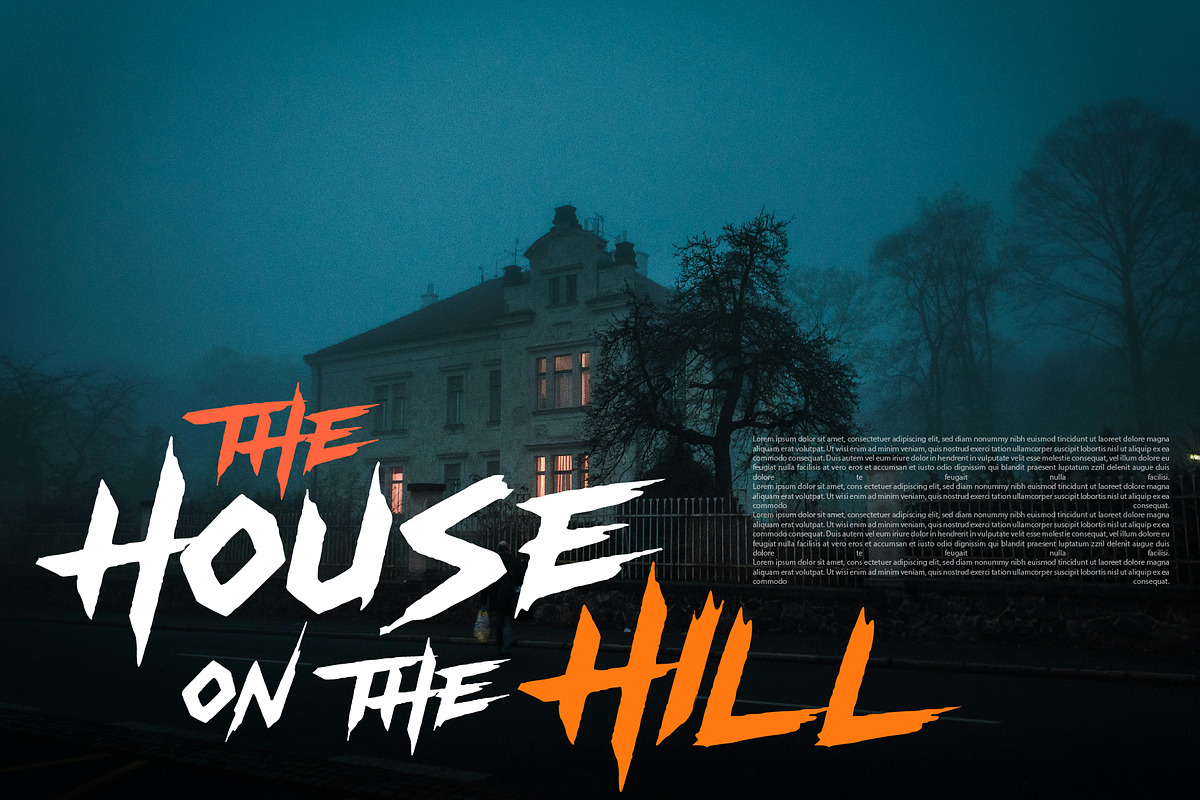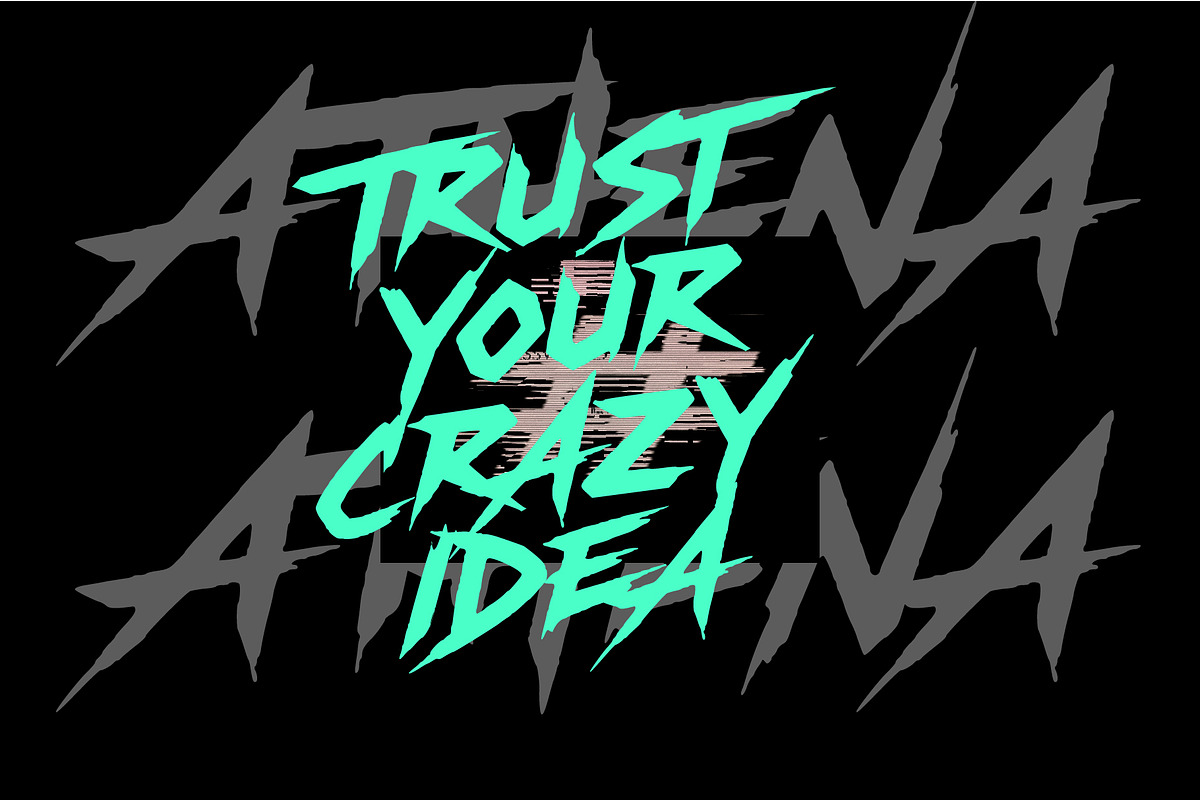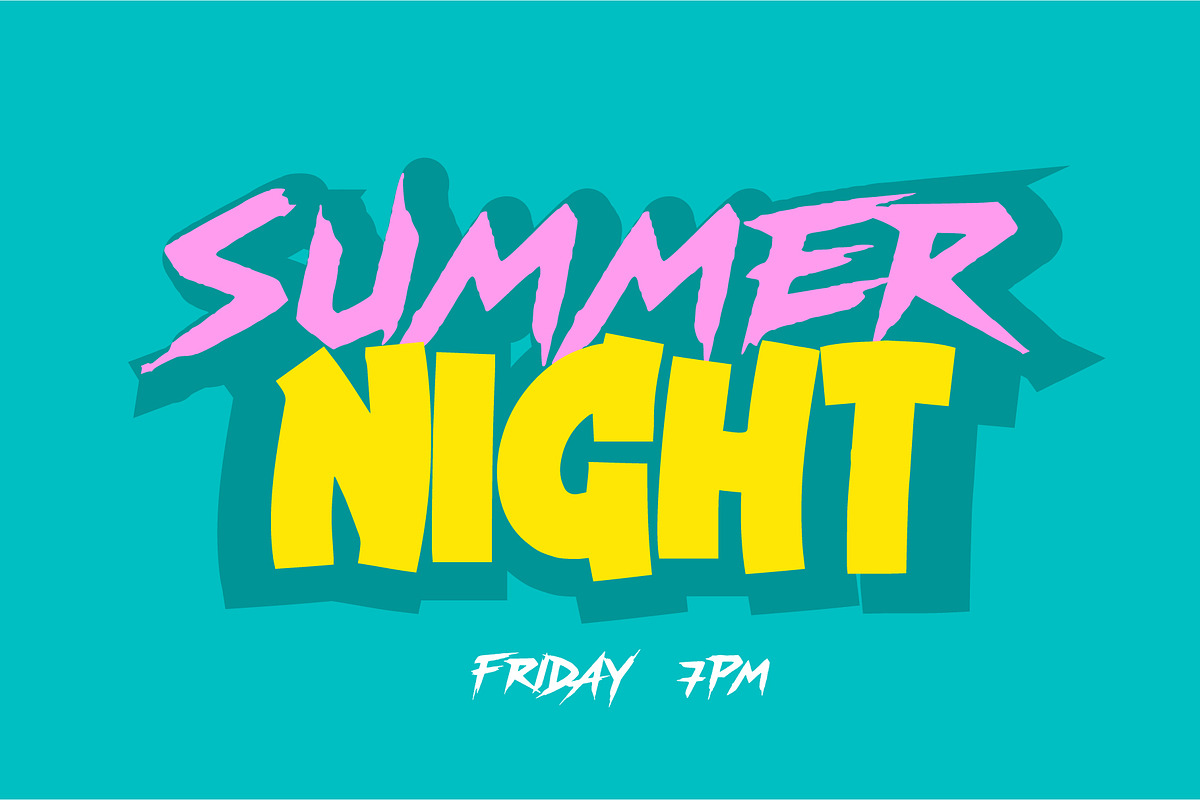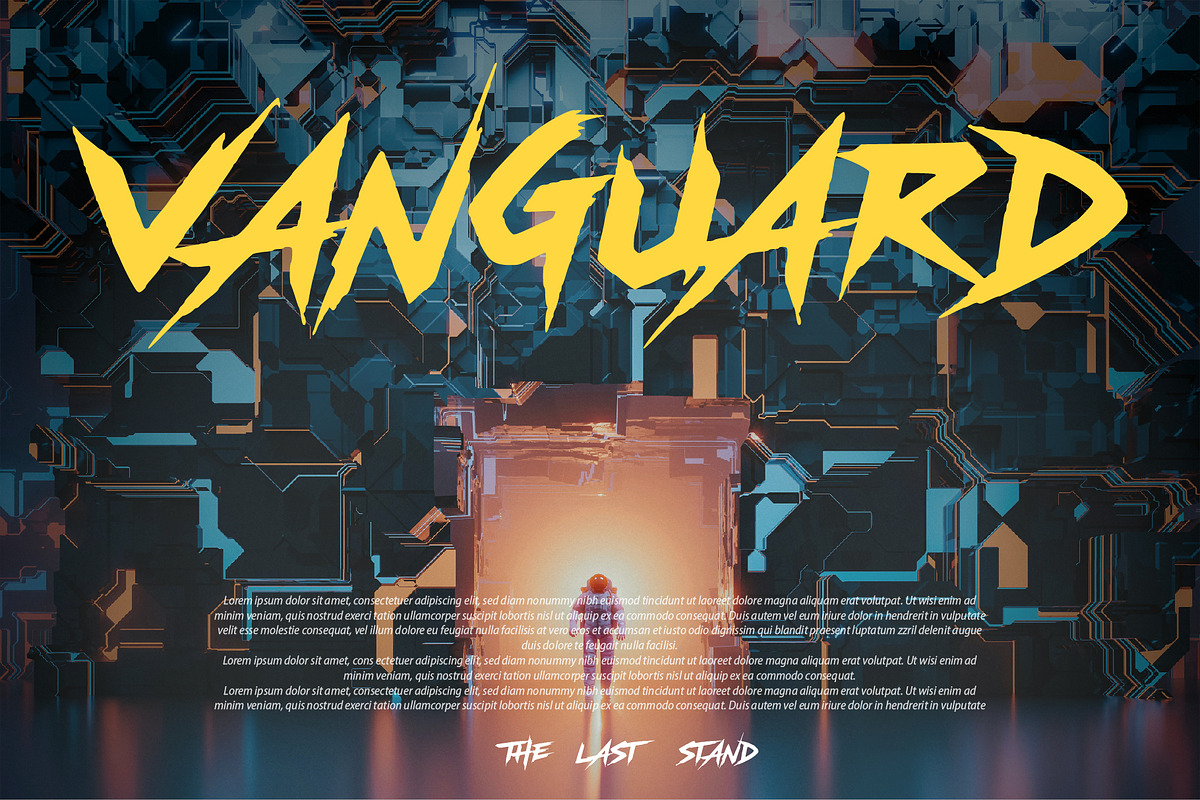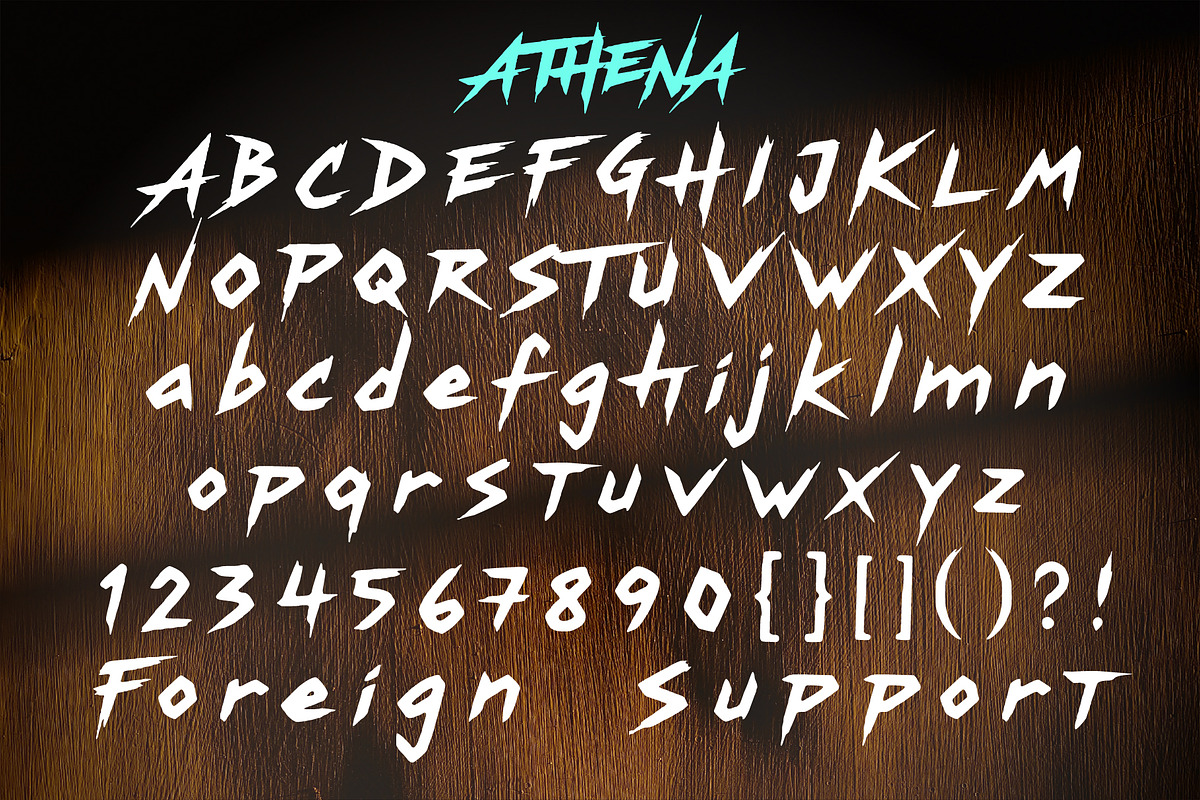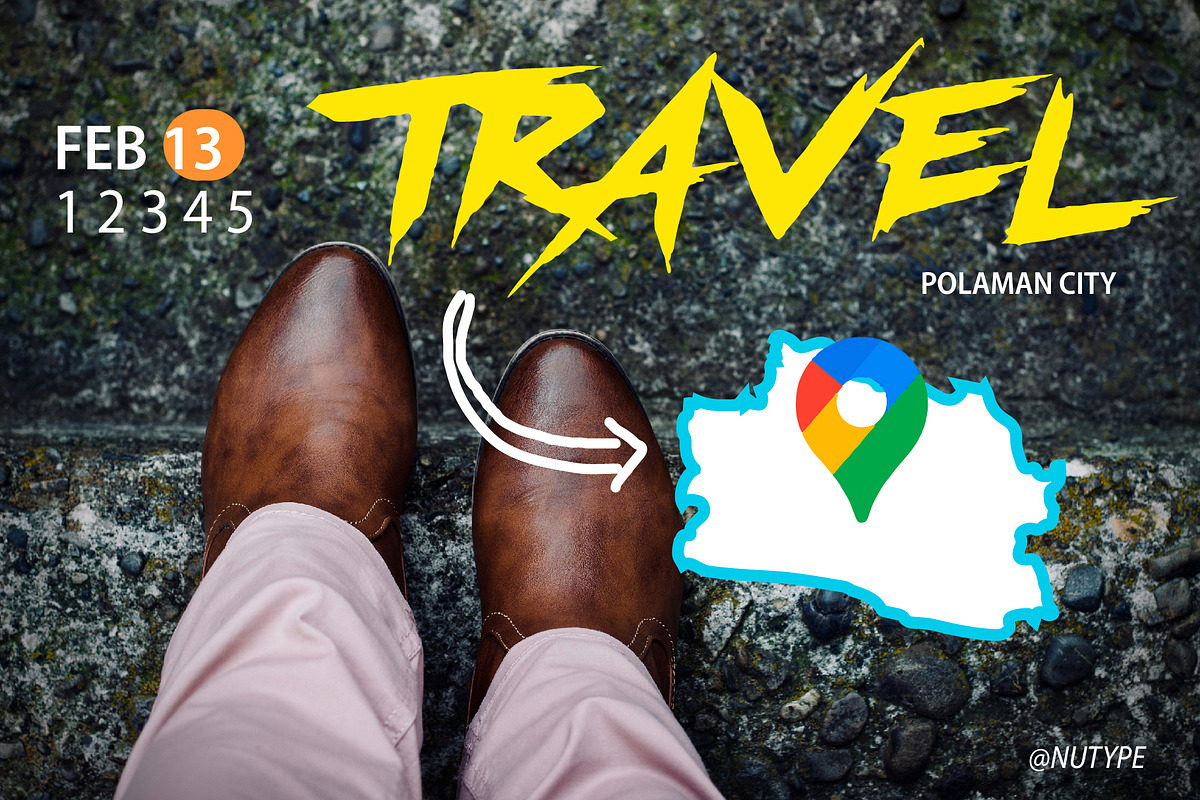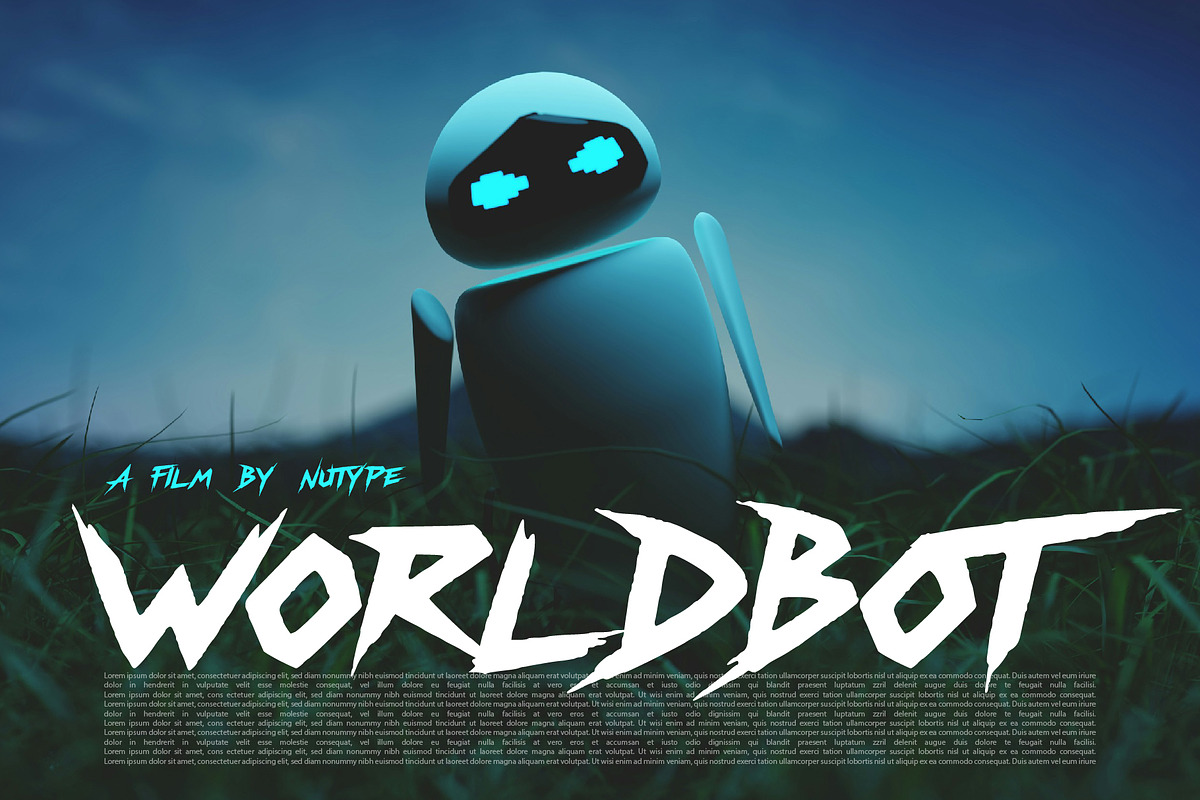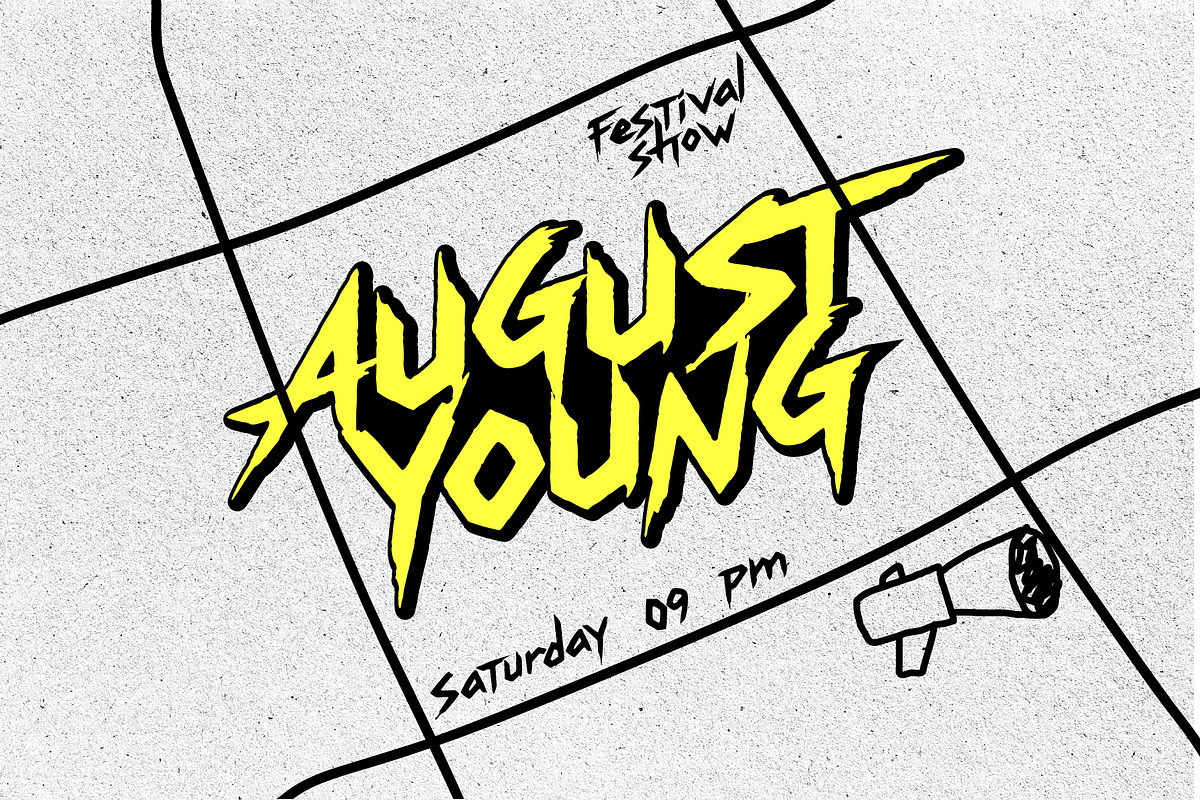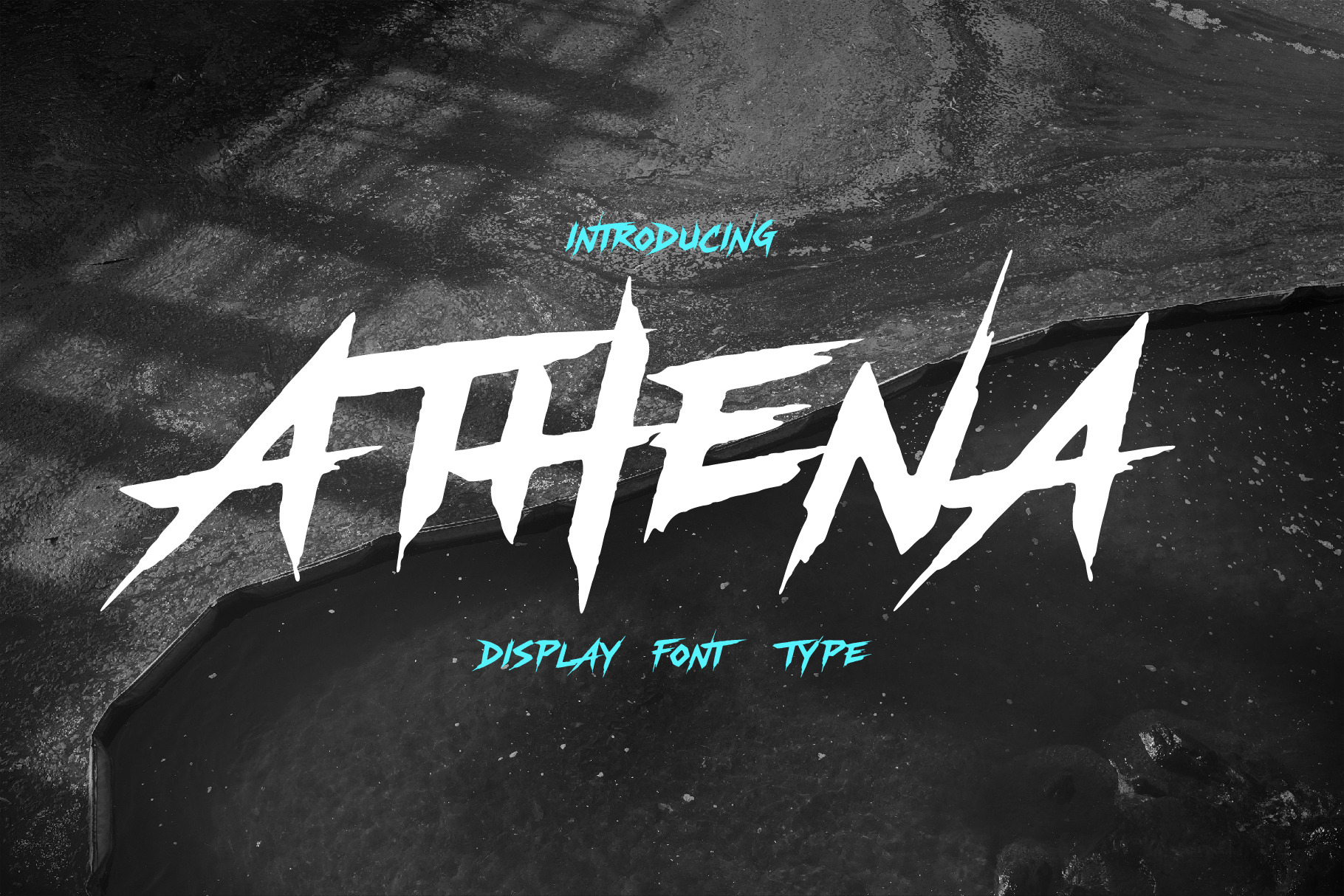
Athena - Display Font Type
ATHENA is a bold brush display font featuring sharp edges, dynamic strokes, and an energetic handcrafted style. Designed to create a powerful visual impact, this typeface combines a rough brush texture with aggressive letterforms, making it perfect for projects that demand attention.
Its distinctive appearance works exceptionally well for music artwork, gaming titles, movie posters, streetwear branding, sports graphics, social media content, and creative display applications.
Whether you're creating a bold logo, an eye-catching headline, or a dramatic promotional design, ATHENA delivers a strong and unforgettable presence.
Uppercase & Lowercase Characters
Bring energy, attitude, and creativity to your designs with ATHENA.